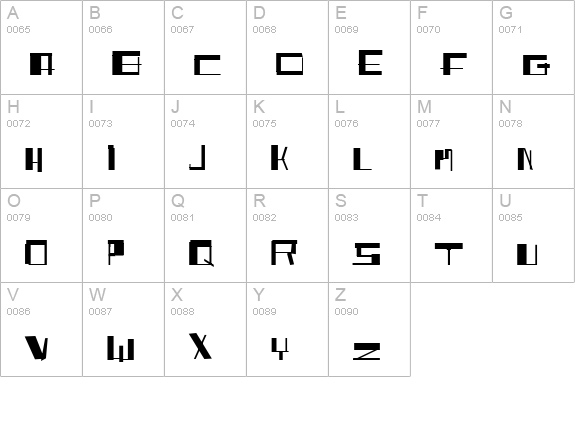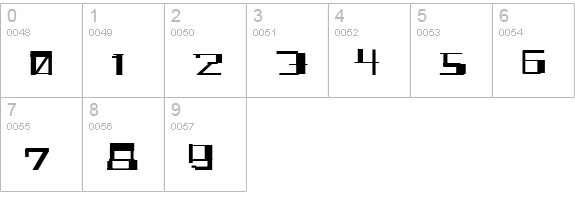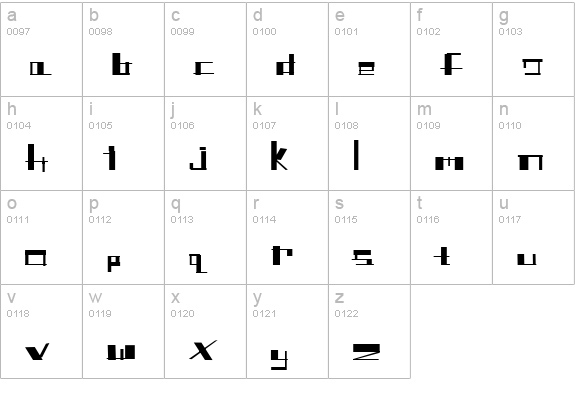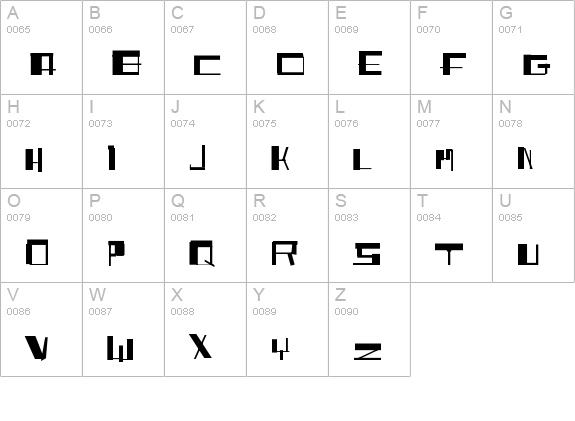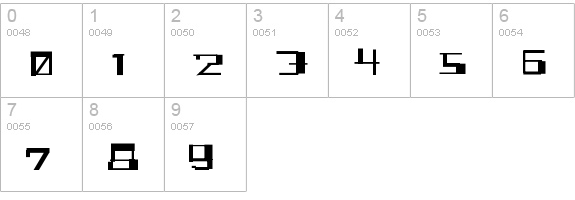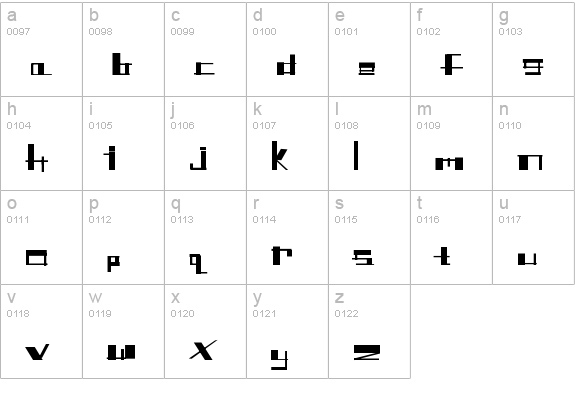
Shitfont Font Details
Introducing Shitfont, the revolutionary typeface that breaks all boundaries and challenges traditional design norms. This one-of-a-kind font dares to defy convention with its bold and unconventional design elements. Shitfont pushes the boundaries of typography, offering a truly unique and distinct visual experience. Designed to make a statement, Shitfont is perfect for those who crave originality and seek to stand out in a sea of mundane typography. With its unconventional shapes and unexpected twists, this font demands attention and captivates the viewer's imagination. But what truly sets Shitfont apart is not just its groundbreaking design, but also the fact that it is available for free. Yes, you read that right. Shitfont can be freely downloaded from FontsMarket.com, allowing designers, creatives, and enthusiasts alike to easily access this exceptional font without any cost. Whether you're designing a cutting-edge logo, crafting eye-catching headlines, or simply want to add a touch of uniqueness to your creative projects, Shitfont is the perfect choice. Its versatility and adaptability make it suitable for a wide range of design applications, from print to digital media. With Shitfont, you have the power to break free from the confines of conventional typography and unleash your creativity like never before. So why settle for ordinary when you can embrace the extraordinary? Download Shitfont for free today at FontsMarket.com and embark on a design journey that will leave a lasting impression.